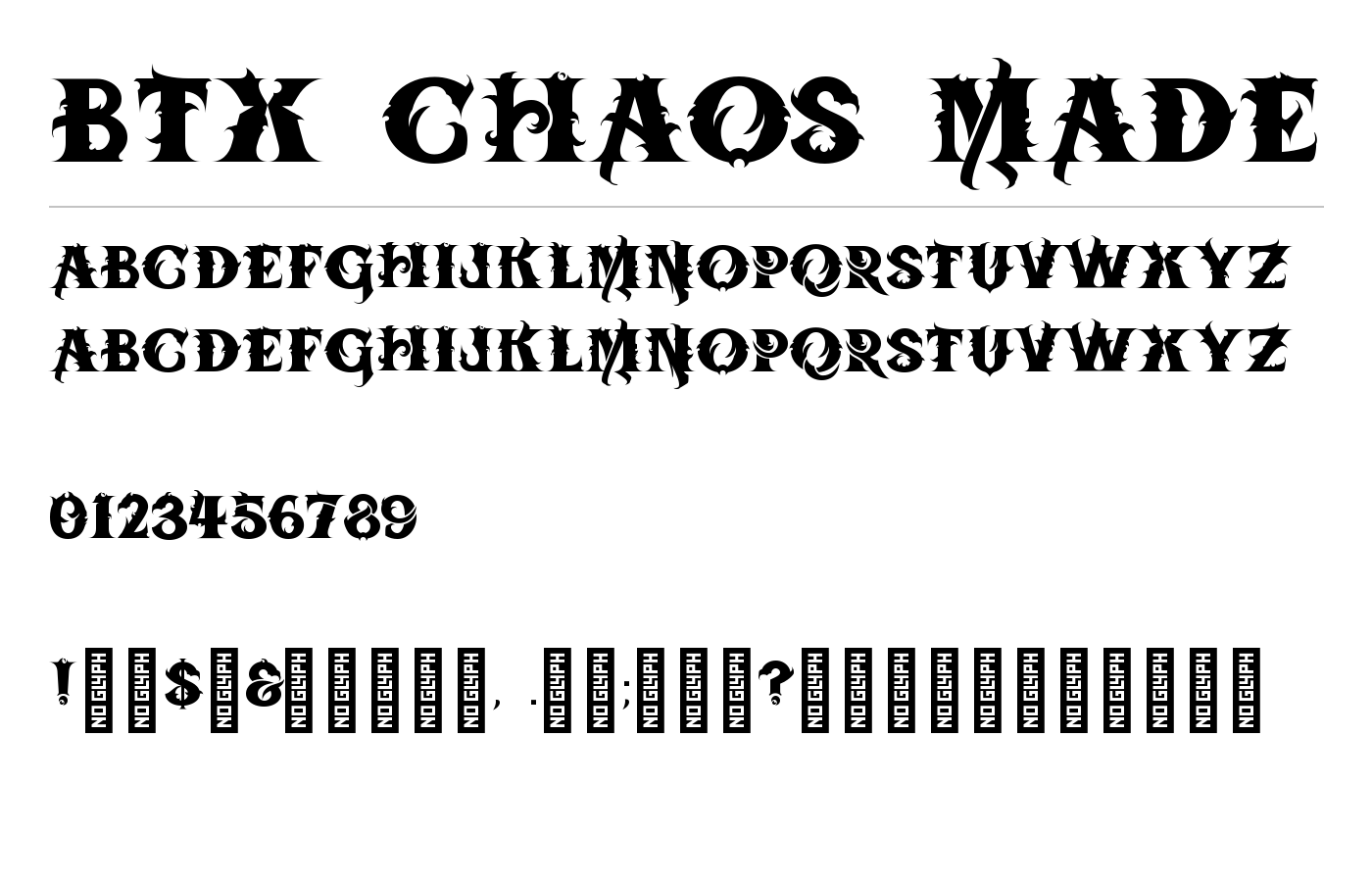
BTX-Chaos-Made is a bold serif display font with dramatic, sharp ornamental details that give it a gothic and chaotic feel. Its heavy weight and dense letterforms combine with swirling, spiky accents to create a striking, theatrical style perfect for eye-catching headlines, logos, or poster designs that need an intense, dark, and edgy mood. This font works best in creative and bold contexts where making a strong visual impact is key.
BTX-Chaos-Made Font
About BTX-Chaos-Made Font